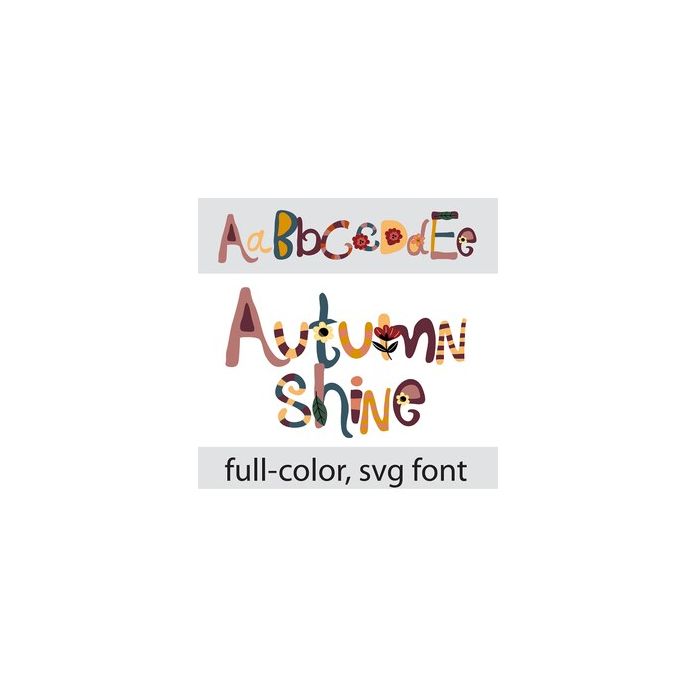
This full-color font features colorful, artsy lettering with an autumn color palette and florals. There is an alt case w/ additional colors you can access through your system or Silhouette's glyph map.